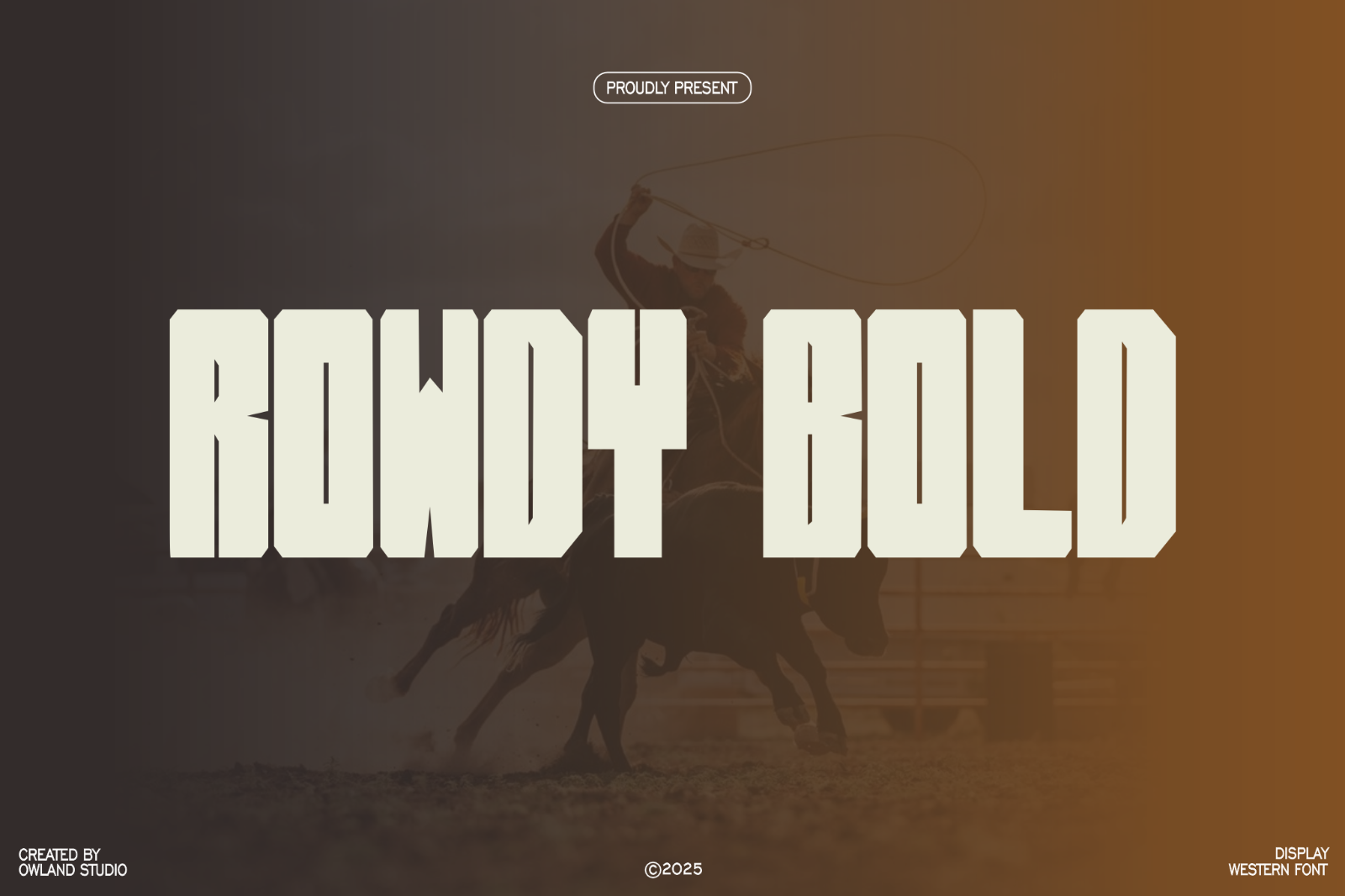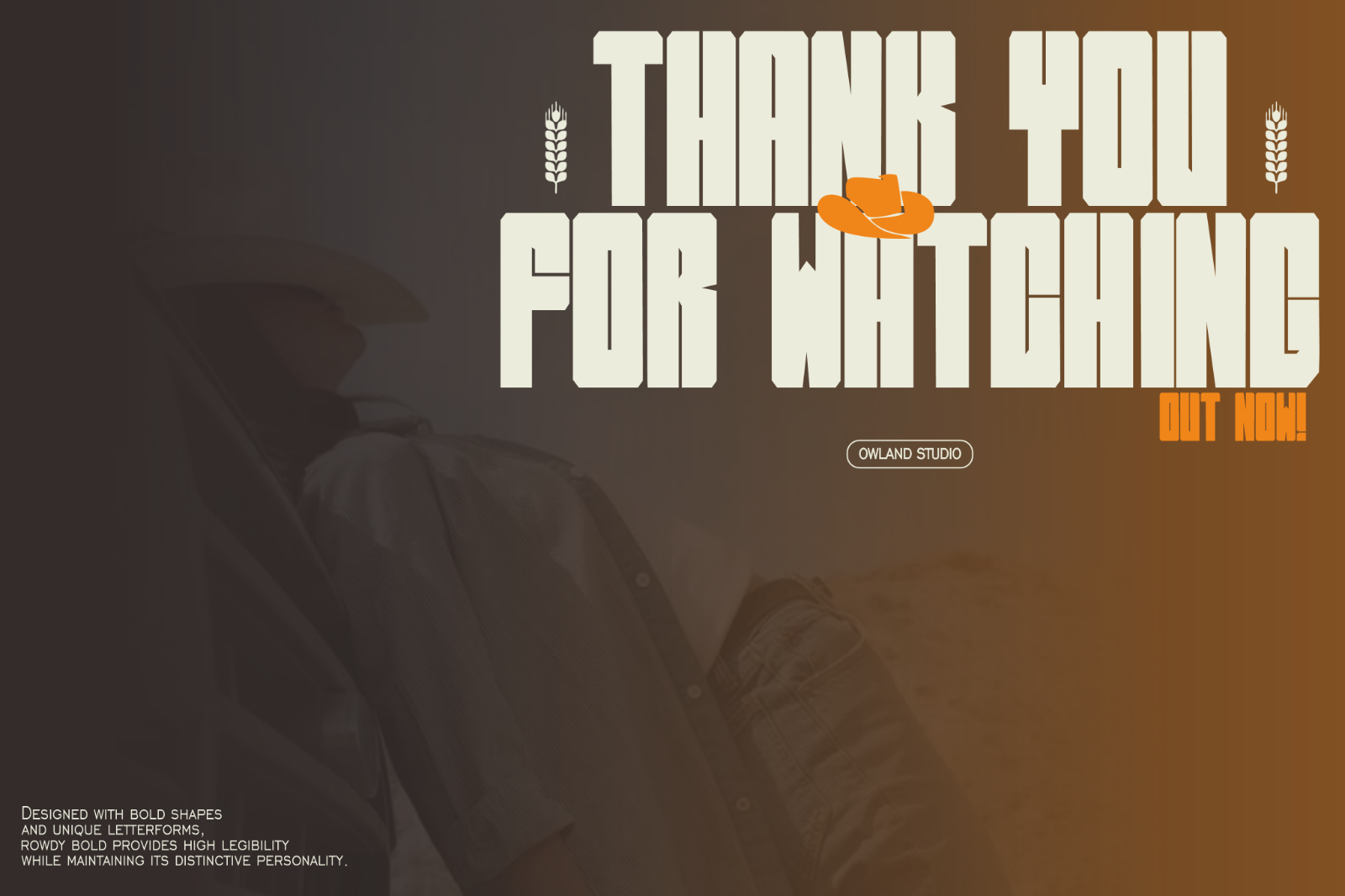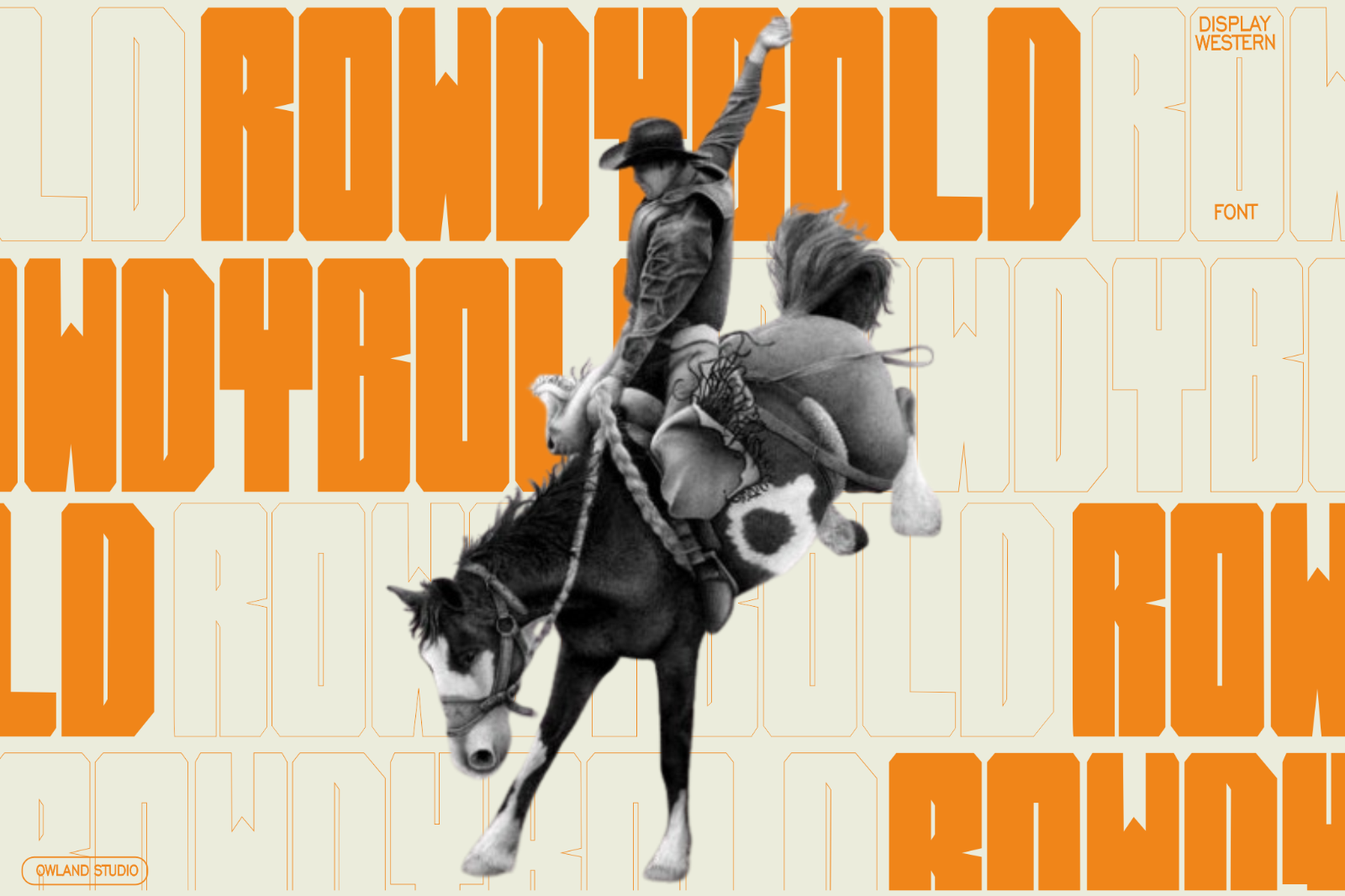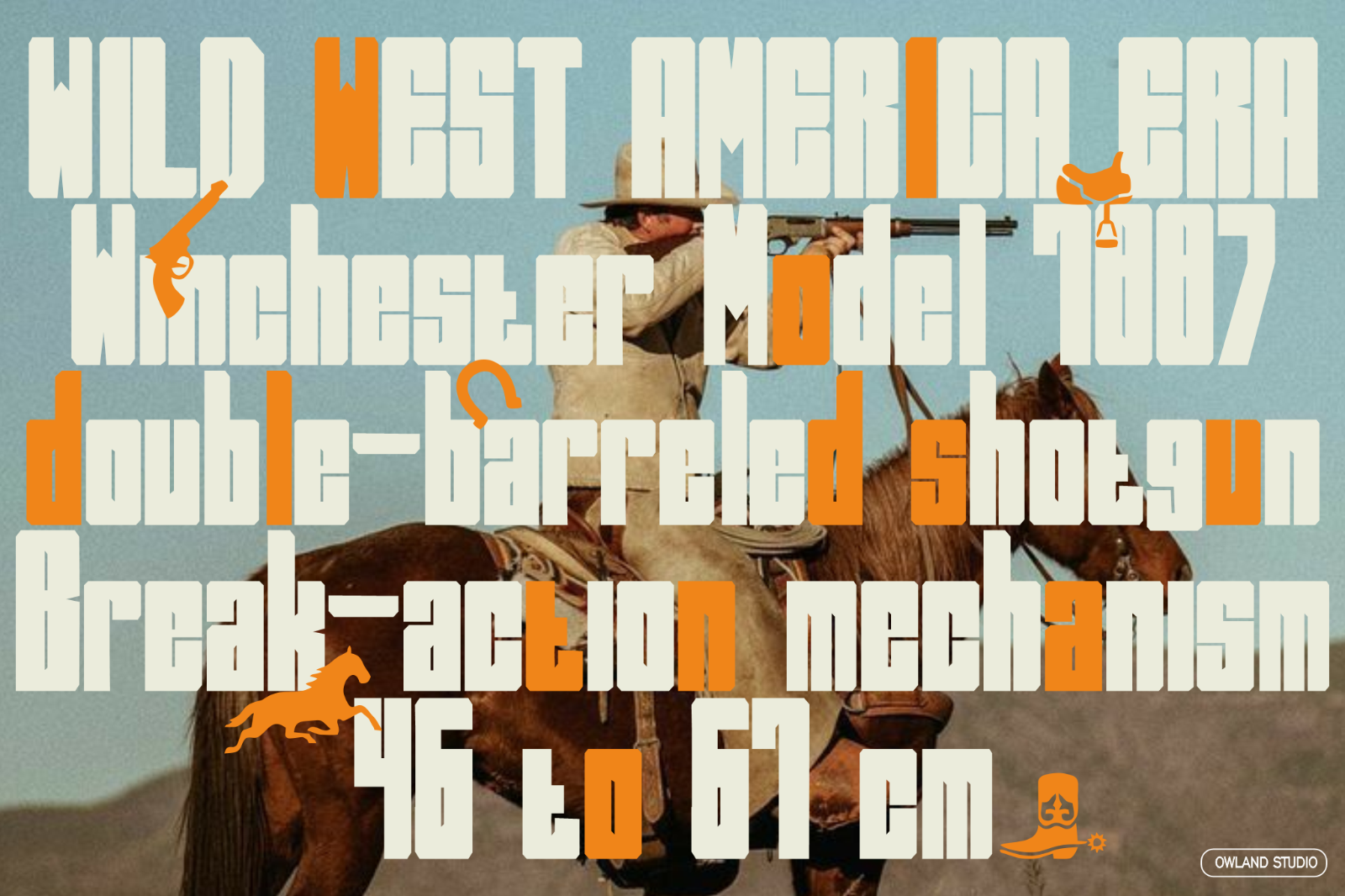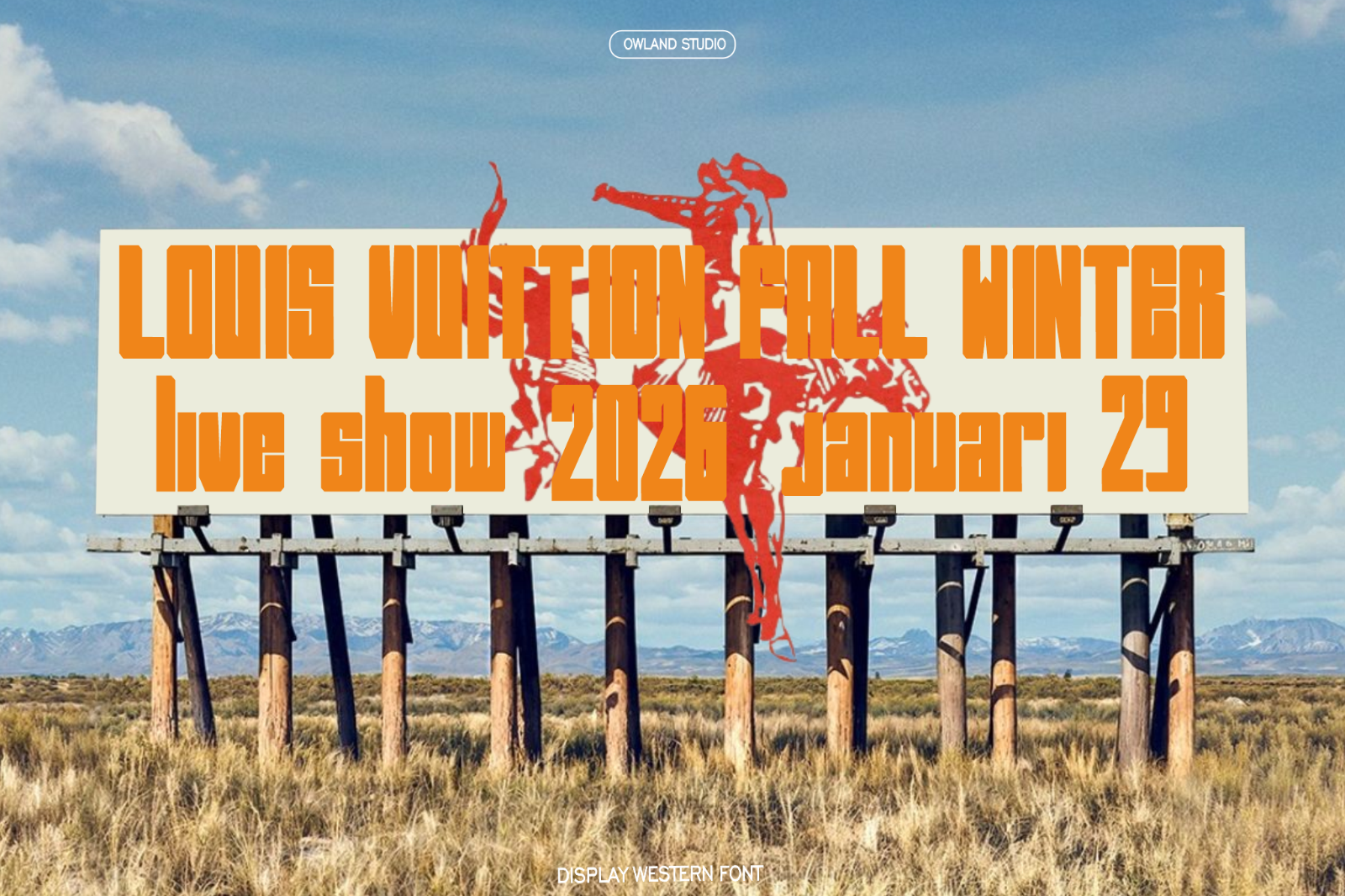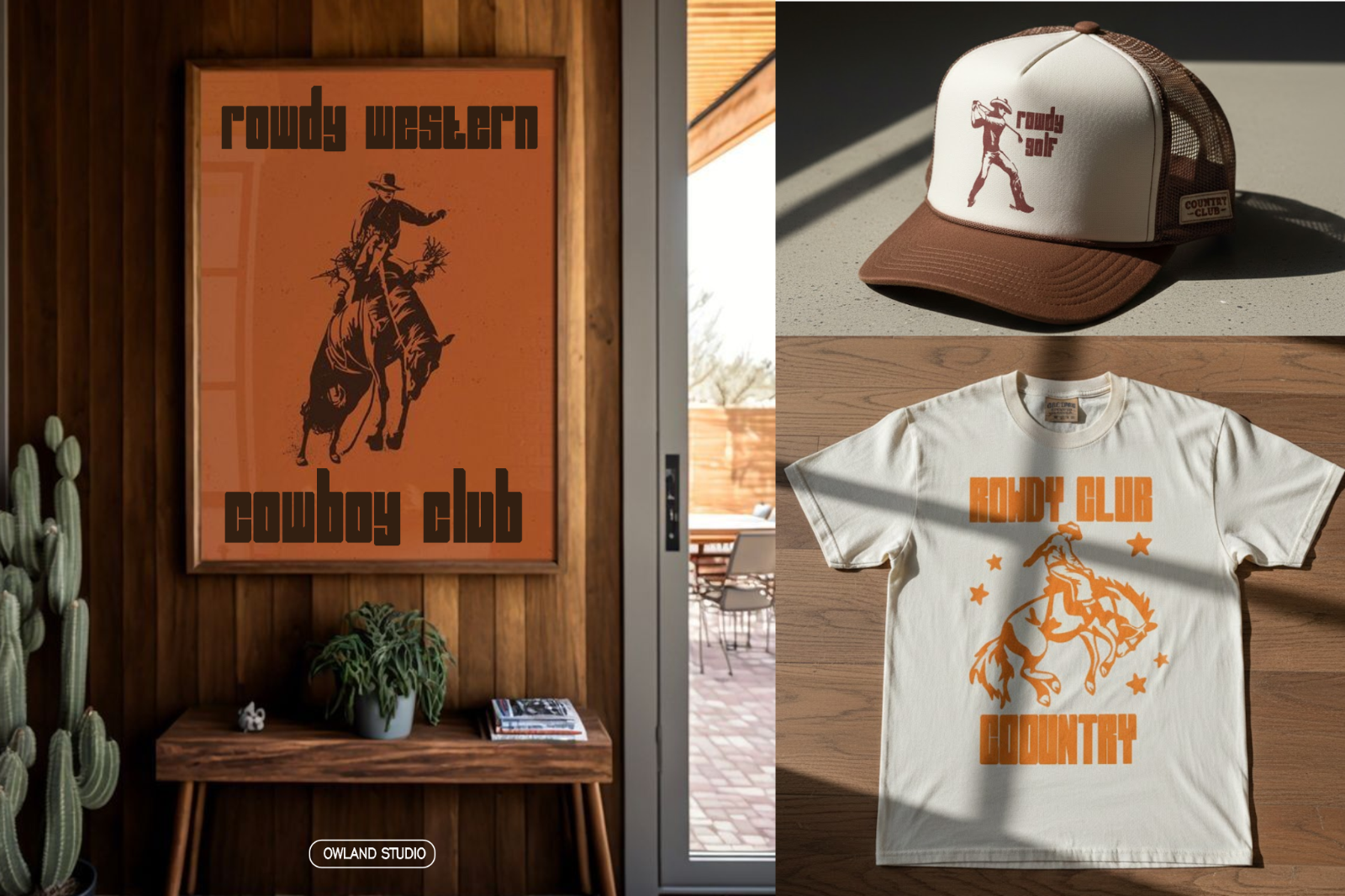
Conjure the spirit of adventure and boldness with Rowdy Bold, a classic Western-style typeface designed with exceptional boldness. Each character exudes strength, warmth, and authority. The chunky, bold letterform makes it highly legible. This stunning design instantly transports you to the Wild West era with unmatched energy. Ideal for must-see headlines, aggressive branding, or posters that require maximum impact.
Conjure the spirit of adventure and boldness with Rowdy Bold, a classic Western-style typeface designed with exceptional boldness. Each character exudes strength, warmth, and authority. The chunky, bold letterform makes it highly legible.
This font captures the cinematic essence of westerns and legendary Wanted posters, yet presented with a modern boldness that makes it relevant today. Its dense, bold letterform provides a rich and powerful visual texture. Use Rowdy Bold to create an atmosphere that is Passionate, Honest, Tough, Unwavering, & Rugged Luxury